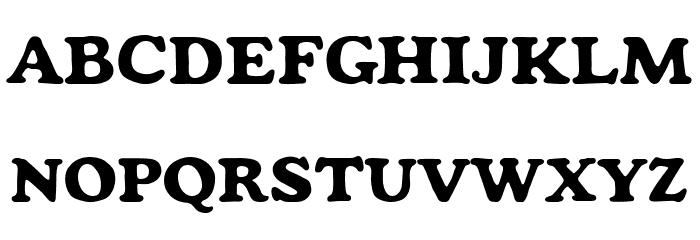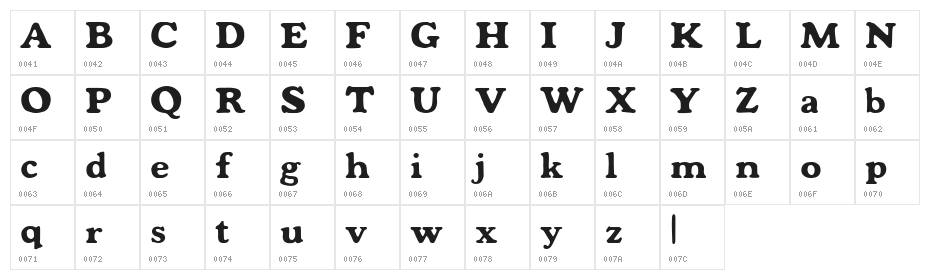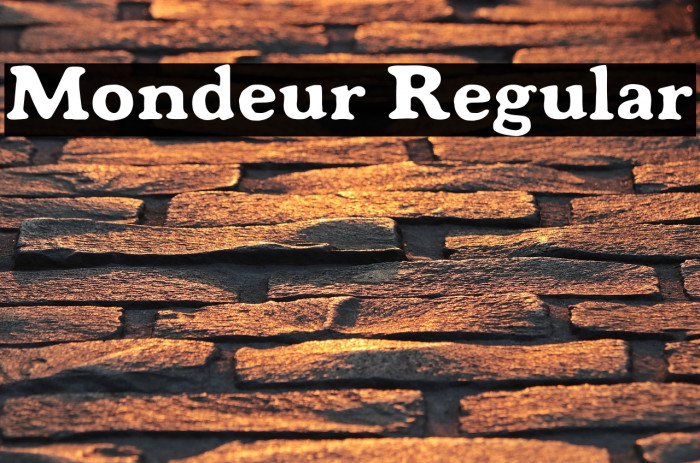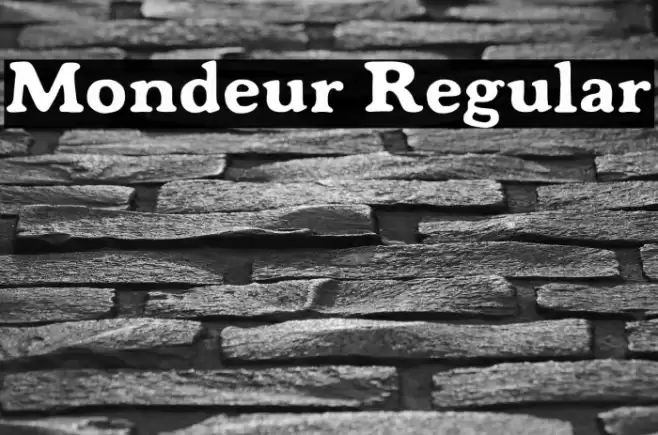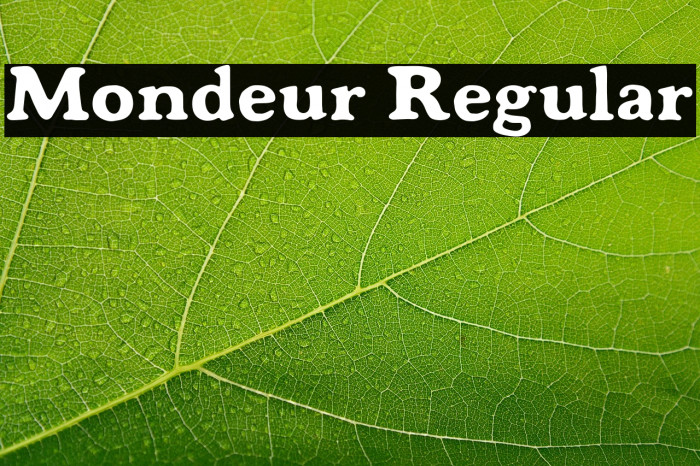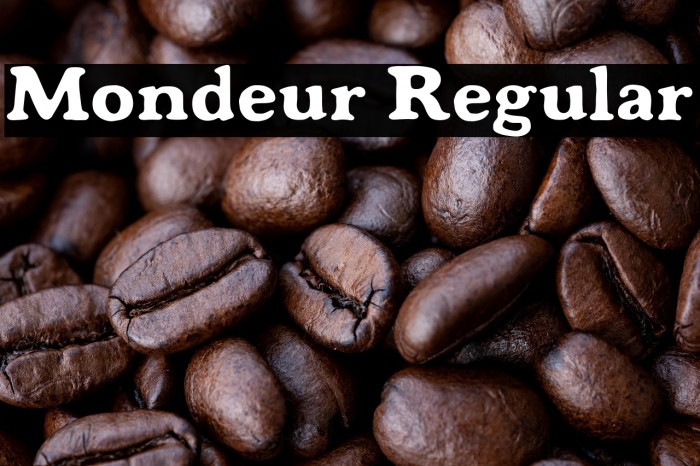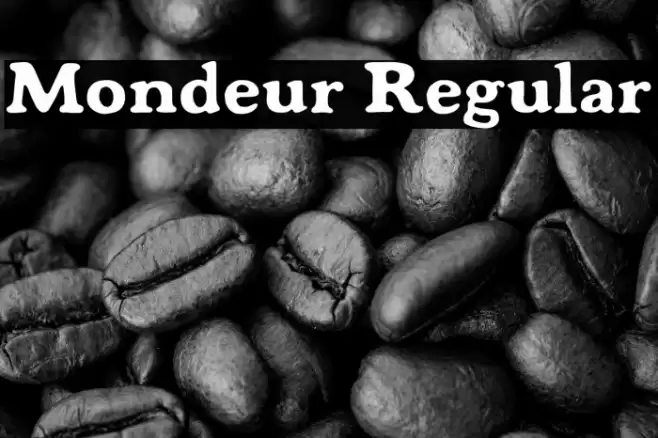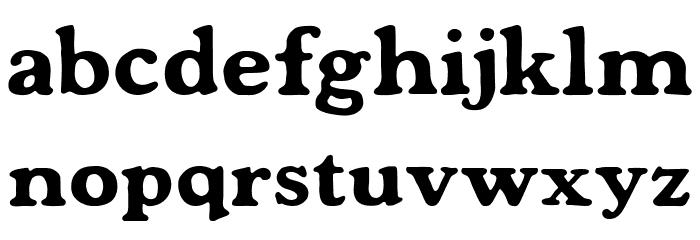
Mondeur Regular Font
Mondeur Regular Description
This font features a bold and robust design with distinct, rounded serifs that give it a strong presence. The characters are well-defined with a slight curvature, adding a touch of elegance to the overall appearance. The uppercase letters are particularly striking, with a commanding presence that makes them ideal for headlines and titles. The lowercase letters maintain a consistent style, ensuring readability and cohesion across different text sizes. The numbers and special characters are crafted with the same attention to detail, making this font versatile for various applications. Its unique style is suitable for projects that require a classic yet modern touch.
Overall StyleClassic
Use CaseHeadlines, Logos, Editorial design
Proposed ProjectsIdeal for branding, editorial design, posters, and packaging that require a classic yet modern aesthetic.